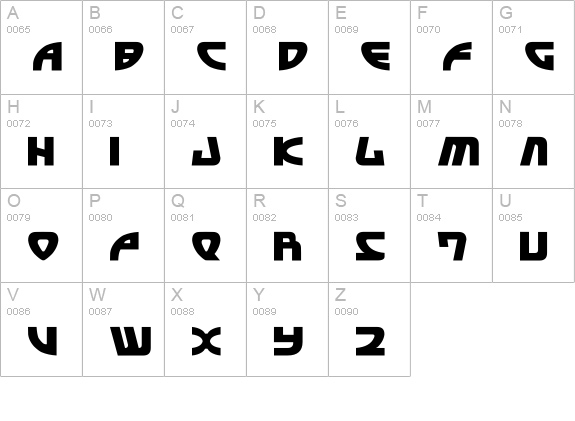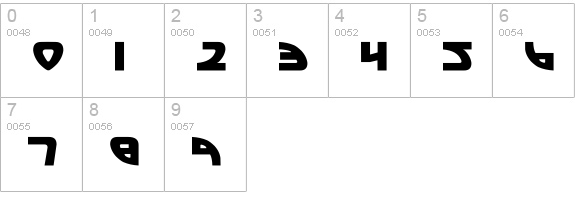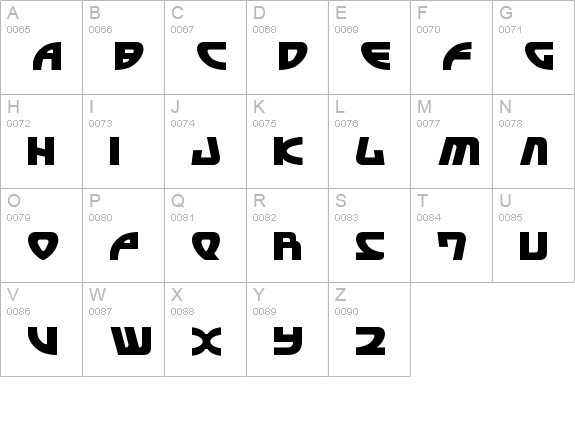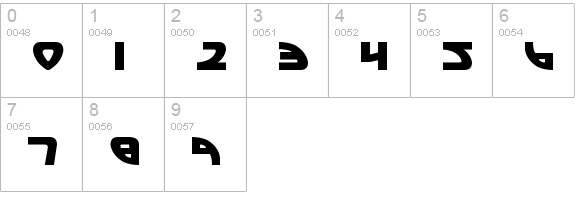
Officer Domenic font is a versatile and modern typeface that exudes authority and professionalism. With its bold and sleek design, this font is perfect for creating impactful headings, signage, and branding materials. Officer Domenic font strikes the perfect balance between sophistication and readability, making it suitable for a wide range of design projects. What sets Officer Domenic font apart is its timeless appeal and attention to detail. Each character is meticulously crafted to ensure a seamless and polished look. Whether you are designing a logo for a law enforcement agency or creating a striking poster for a corporate event, Officer Domenic font will help you make a bold statement. The best part about Officer Domenic font is that it is freely available to download at FontsMarket.com. This means that you can easily incorporate this stylish font into your projects without any cost. Don't miss out on the opportunity to elevate your designs with Officer Domenic font's sophisticated charm and professionalism. Download it today and unleash your creativity!